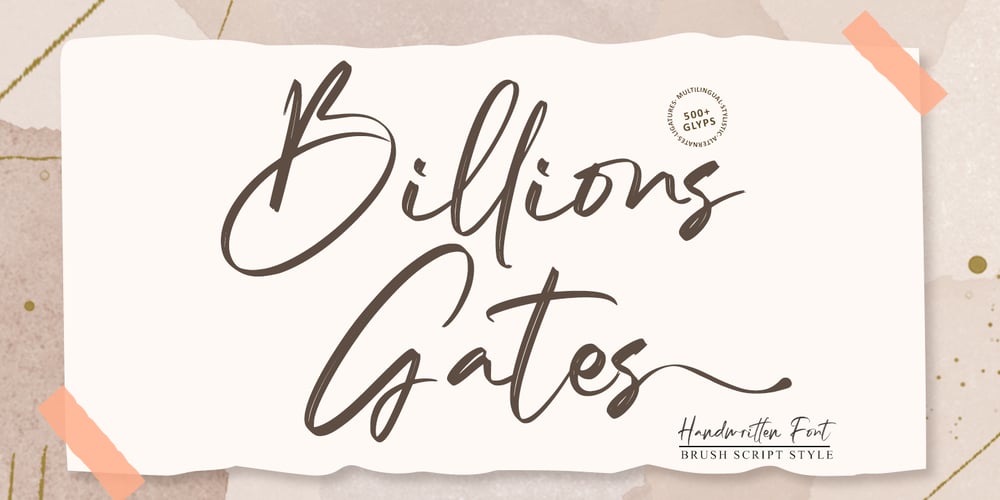
Billions Gates Font Family was designed by Gie Studio and published by Gie Studio. Billions Gates contains 1 styles and family package options. Hello Everybody,.Hurry up, your choice to design your business product with writing that has a natural and firm impression !Billions Gates is a dazzling script font, neatly crafted and highly detailed. This font perfect for many projects such as logos & branding, stationery, logo designs, social media posts, advertisements, product packaging, product designs, label, watermark, Product branding and others.Features: Multilingual Support for 83 Country Stylistic alternates Collection Ligature Collection PUA Encoded Numeral and Punctuation Language Support :Afrikaans, Albanian, Asu, Basque, Bemba, Bena, Breton, Catalan, Chiga, Colognian, Cornish, Croatian, Czech, Danish, Dutch, Embu, English, Esperanto, Estonian, Faroese, Filipino, Finnish, French, Friulian, Galician, Ganda, German, Gusii, Hungarian, Inari Sami, Indonesian, Irish, Italian, Jola-Fonyi, Kabuverdianu, Kalaallisut, Kalenjin, Kamba, Kikuyu, Kinyarwanda, Latvian, Lithuanian, Lower Sorbian, Luo, Luxembourgish, Luyia, Machame, Makhuwa-Meetto, Makonde, Malagasy, Maltese, Manx, Meru, Morisyen, Northern Sami, North Ndebele, Norwegian Bokmål, Norwegian Nynorsk, Nyankole, Oromo, Polish, Portuguese, Quechua, Romansh, Rombo, Rundi, Rwa, Samburu, Sango, Sangu, Scottish Gaelic, Sena, Serbian, Shambala, Shona, Slovak, Soga, Somali, Spanish, Swahili, Swedish, Swiss German, Tait, Teso, Turkish, Upper Sorbian, Uzbek (Latin), Volapük, Vunjo, Walser, Zulu.Thank you and happy design !